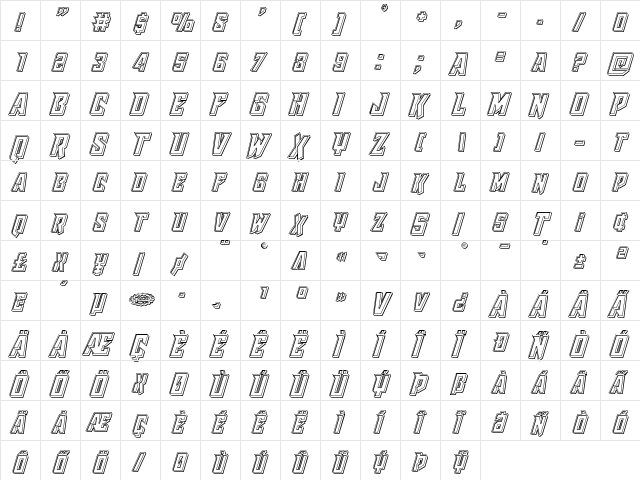
Raider Crusader Engraved Regular
Design Context for Raider Crusader Engraved Typeface
Raider Crusader Engraved is built around its visual character rather than neutral utility — its distinctive forms are designed to make an impression at display sizes.
Font Pairing: Pair with a clean neutral sans-serif for body copy to let Raider Crusader Engraved's character lead without overwhelming the composition.
Pro Tip: Treat Raider Crusader Engraved as the centrepiece of your typographic hierarchy. One strong heading set in a decorative face can carry an entire layout.